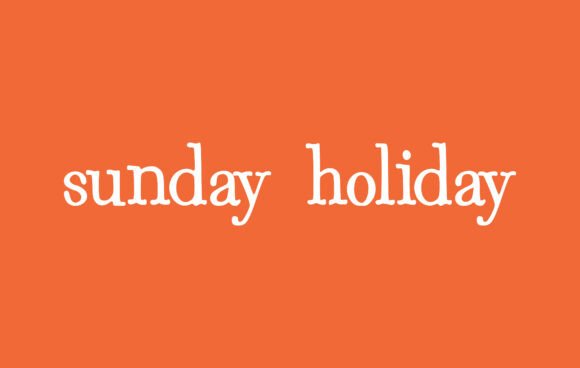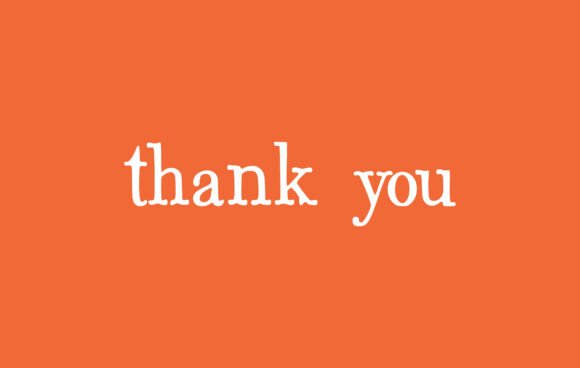
Introducing Cheerotype Font: The Ultimate Handwritten Font for Creative Projects
Are you tired of using the same old fonts for your creative projects? Look no further than Cheerotype Font, an authentic handwritten font with a romantic touch that’s sure to take your designs to the next level. In this article, we’ll dive into the features and benefits of Cheerotype Font, and explore how it can be used to elevate your magazine headlines, social media graphics, branding, wedding invitations, and more.
What is Cheerotype Font?
Cheerotype Font is a beautifully crafted handwritten font that’s designed to add a touch of elegance and sophistication to your designs. With its romantic and whimsical feel, this font is perfect for designers and crafters who want to add a personal touch to their work. Whether you’re creating a wedding invitation, a social media graphic, or a magazine headline, Cheerotype Font is sure to make your design stand out.
Key Features of Cheerotype Font
• Authentic Handwritten Style: Cheerotype Font is an authentic handwritten font that’s been expertly designed to mimic the look and feel of handwritten text.
• Romantic Touch: With its whimsical and elegant feel, Cheerotype Font adds a touch of romance to any design.
• Legible and Versatile: This font is not only beautiful, but also highly legible, making it perfect for use as a title or body text.
• Wide Range of Uses: From magazine headlines to social media graphics, branding, wedding invitations, and more, Cheerotype Font is a versatile font that can be used for a wide range of creative projects.
Benefits of Using Cheerotype Font
So why choose Cheerotype Font for your next creative project? Here are just a few benefits of using this amazing font:
• Adds a Personal Touch: With its handwritten style, Cheerotype Font adds a personal touch to your designs that sets them apart from the rest.
• Elevates Your Brand: Whether you’re a designer, crafter, or business owner, Cheerotype Font can help elevate your brand and make it more memorable.
• Easy to Read: Despite its elegant and whimsical feel, Cheerotype Font is highly legible, making it easy for your audience to read and understand your message.
• Endless Creative Possibilities: With Cheerotype Font, the creative possibilities are endless. Use it to create stunning magazine headlines, social media graphics, wedding invitations, and more.
How to Use Cheerotype Font
• Magazine Headlines: Use Cheerotype Font to create stunning magazine headlines that grab attention and draw readers in.
• Social Media Graphics: Add a touch of elegance and sophistication to your social media graphics with Cheerotype Font.
• Wedding Invitations: Make your wedding invitations truly special with Cheerotype Font, perfect for creating romantic and memorable invitations.
• Branding: Use Cheerotype Font to elevate your brand and make it more memorable.
In conclusion, Cheerotype Font is an amazing handwritten font that’s perfect for designers and crafters who want to add a touch of elegance and sophistication to their creative projects. With its romantic and whimsical feel, high legibility, and versatility, Cheerotype Font is sure to take your designs to the next level. Whether you’re creating magazine headlines, social media graphics, wedding invitations, or more, Cheerotype Font is the perfect choice.